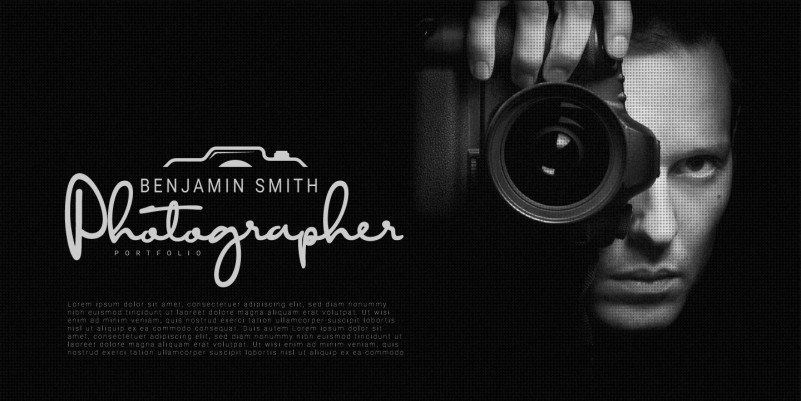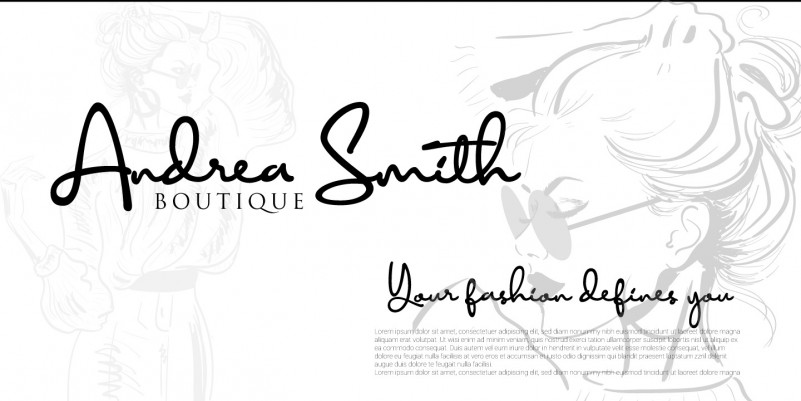
Genius Script Font
Genius is a lovely script font, designed with the help of a beautiful brush pen. Its natural and unique style makes it incredibly fitting to a large pool of designs. The only limit is your imagination!